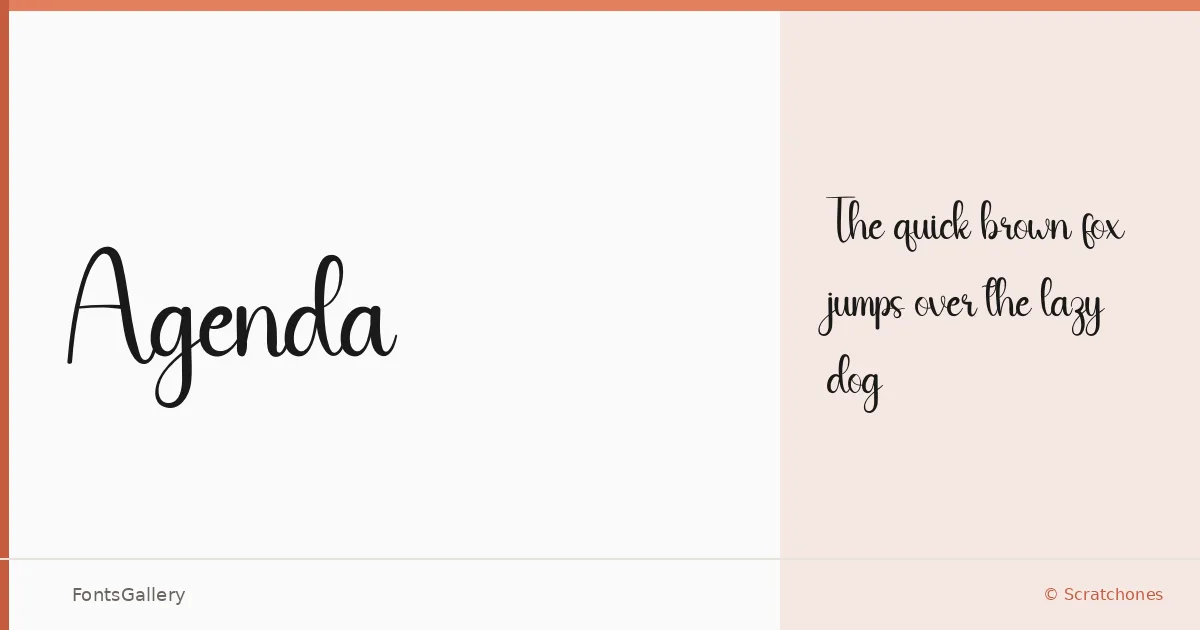
About Agenda Font
There is a particular kind of script that earns its place on a wedding envelope or a boutique logo not through novelty but through the confidence of its stroke — the way the curves settle and the letters connect with unhurried grace. This is that kind of face. Designed by Scratchones, it arrives as a single Regular weight in OTF format, a deliberate offering rather than an expansive system.
The script sits comfortably in the classic and romantic register, with an elegance that reads as handcrafted rather than mechanical. Its Latin character set carries the kind of flowing letterforms that feel at home in formal contexts — the joins are smooth, the capitals have presence, and nothing about the rhythm feels hurried. One weight means every decision about size and color falls to the designer, which is actually freeing when the face is this composed.
It earns its keep on invitation cards, greeting cards, and wedding stationery, and it transitions naturally into branding and logo work where a romantic, artisanal quality is the brief. For contrast and readability in body copy or supporting text, it pairs well with the clean geometry of Helvetica or the structured forms of Abrade, while Anglecia Pro, AQUA, and Aranea offer more decorative combinations when the whole composition calls for a unified formal tone.